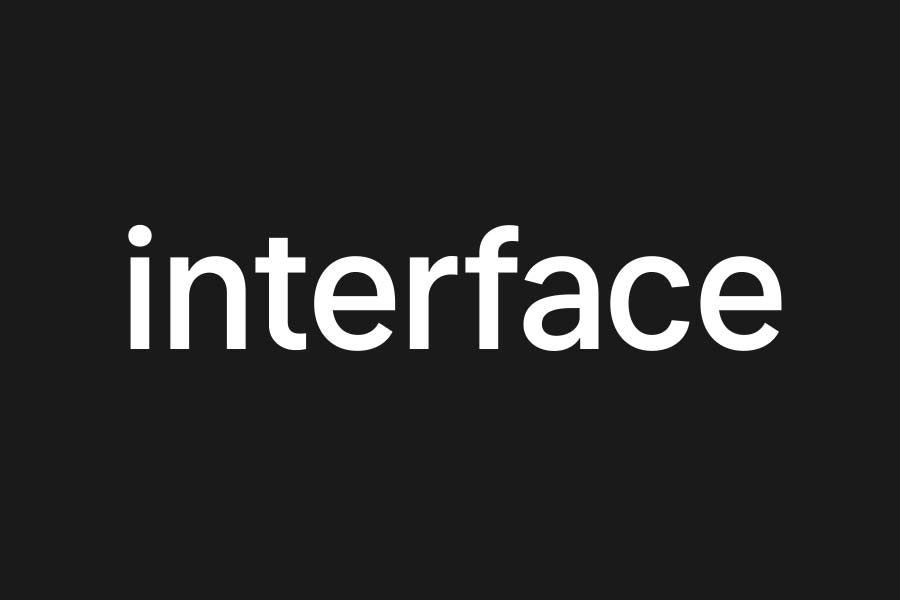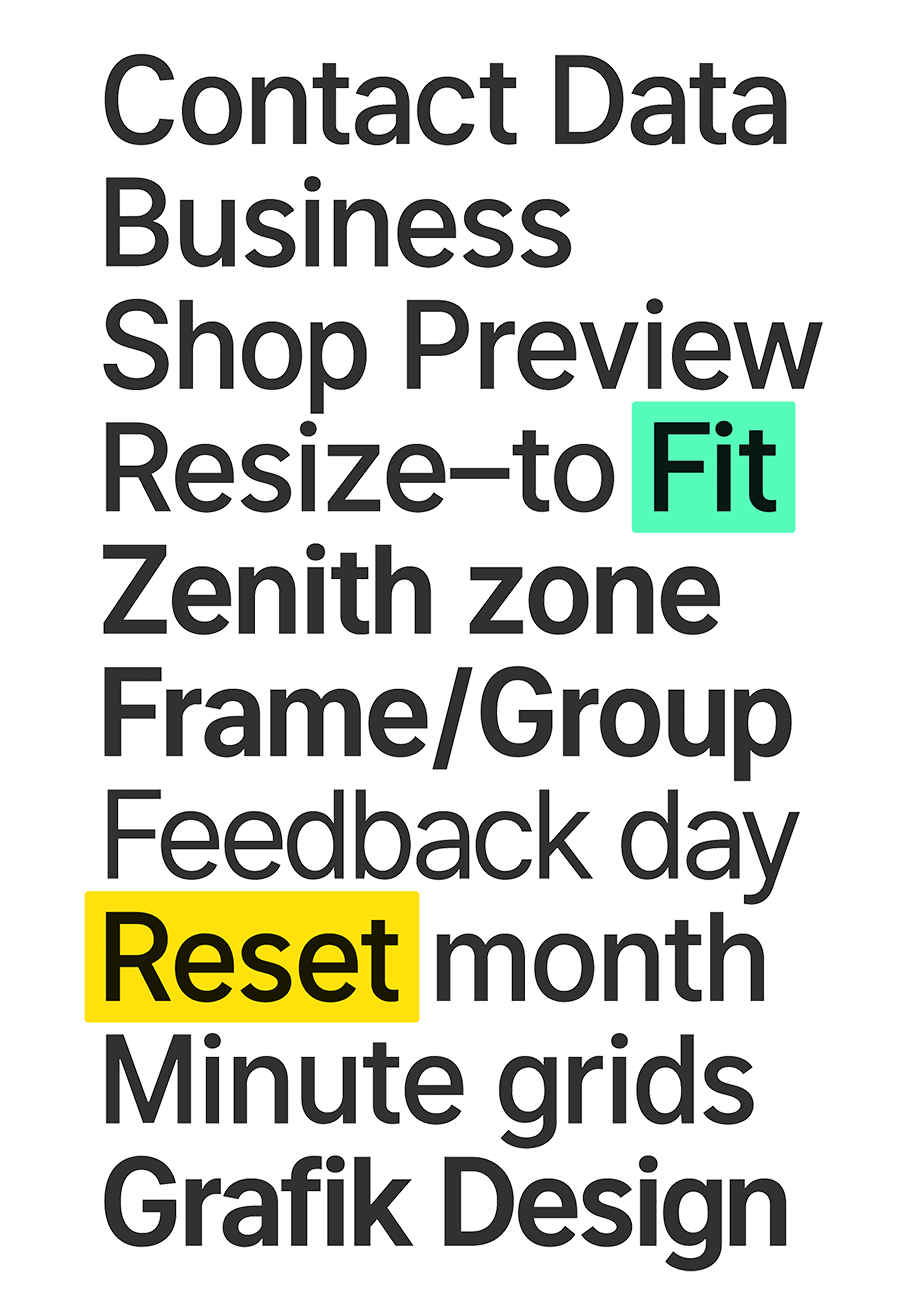
Interface is a highly legible sans serif font that is meant for user interface typography. Started as an experimental project in the late 2016, Interface works extremely well even under very small font sizes, similar to other UI fonts like Roboto and San Francisco.
Currently Interface comes with 4 font weight, from Regular to Black, with extensive supports of glyphs.
- Designer: Rasmus
- Styles: 4